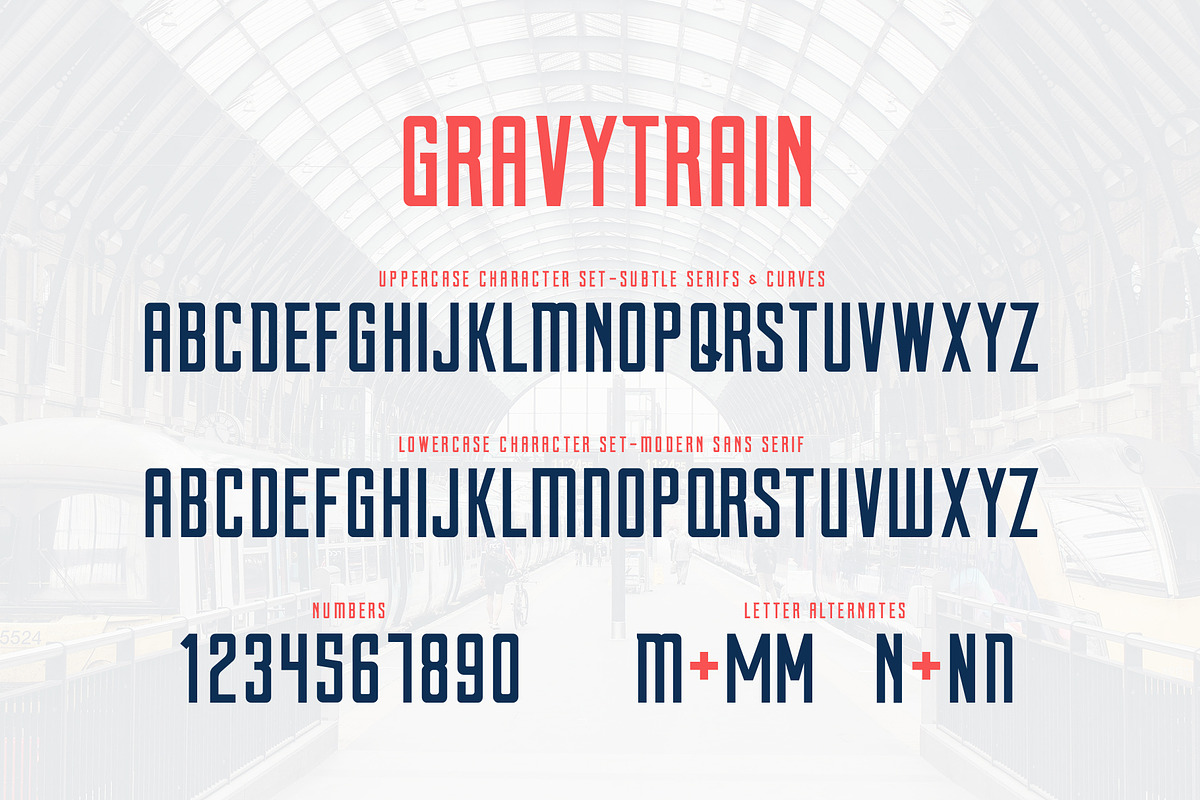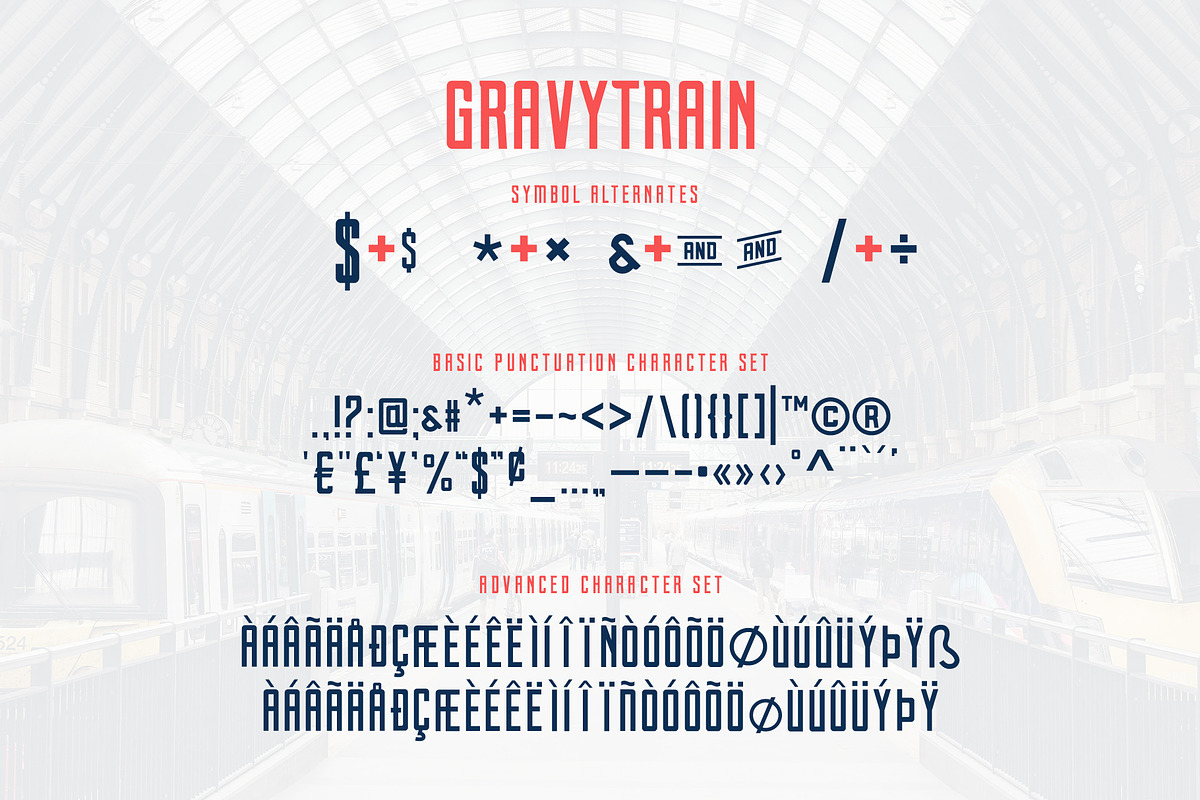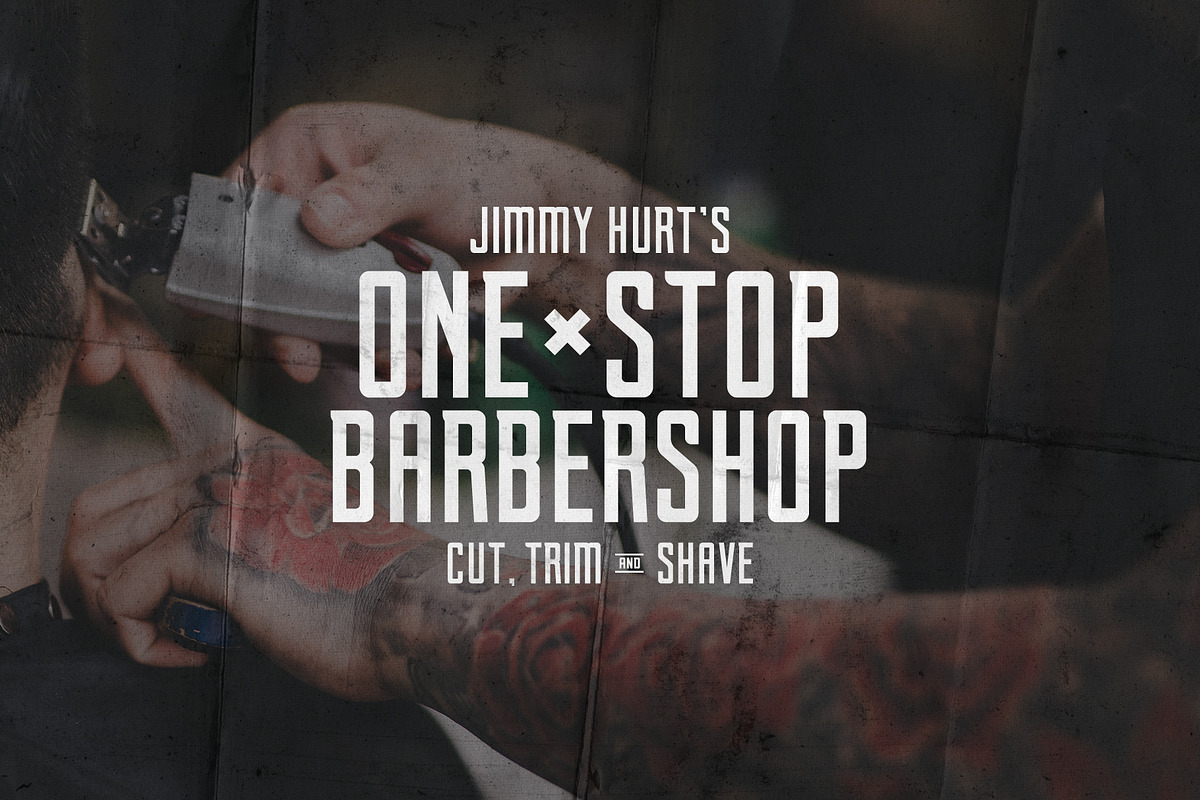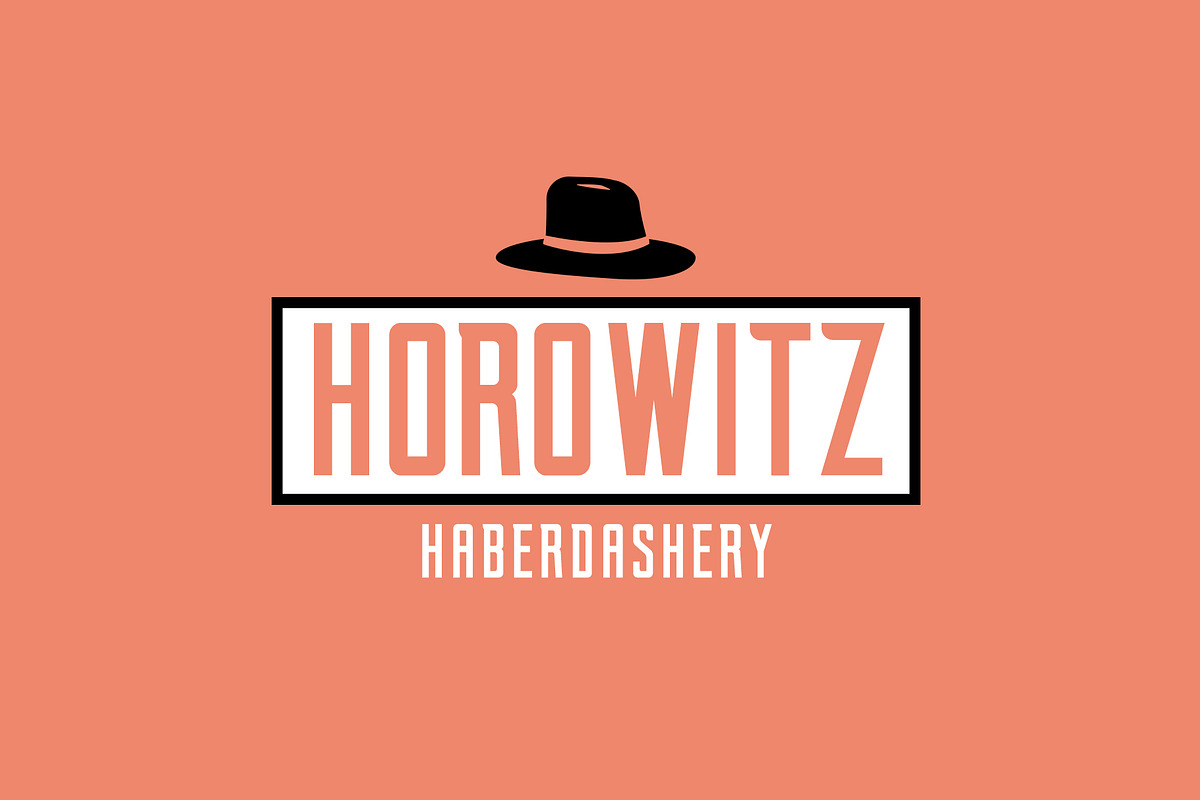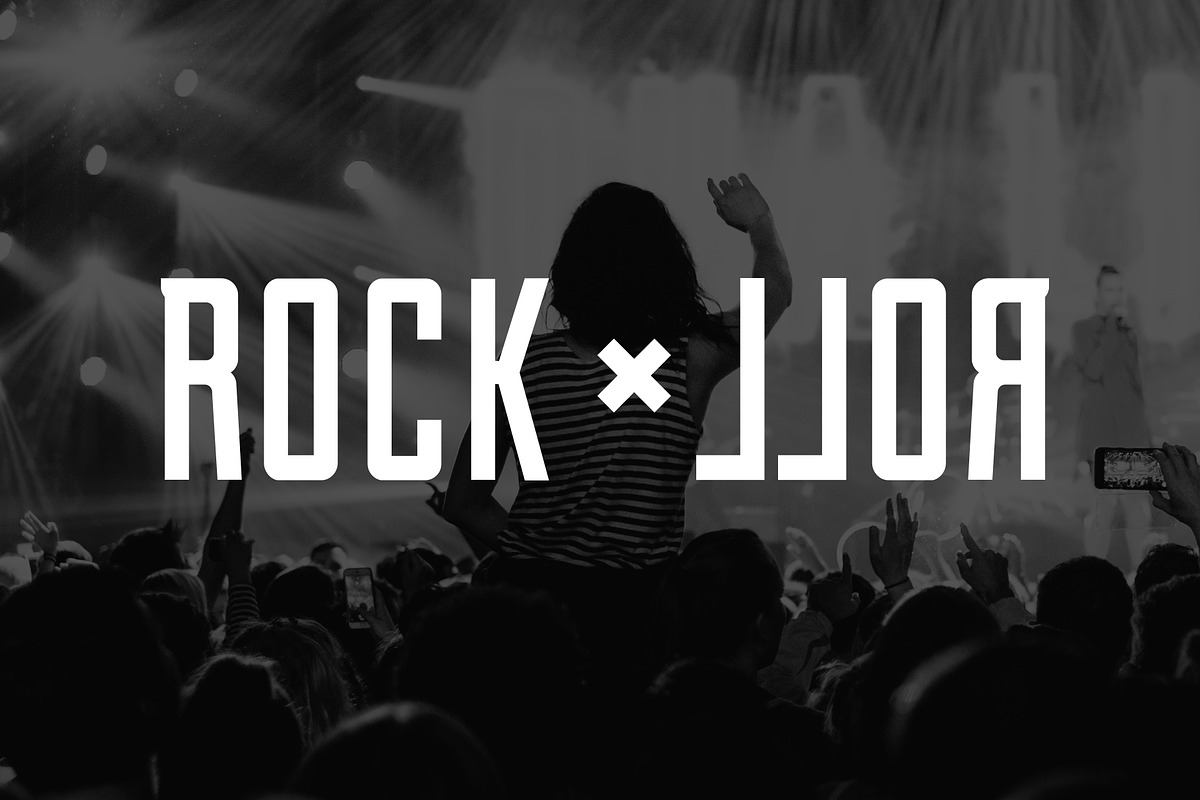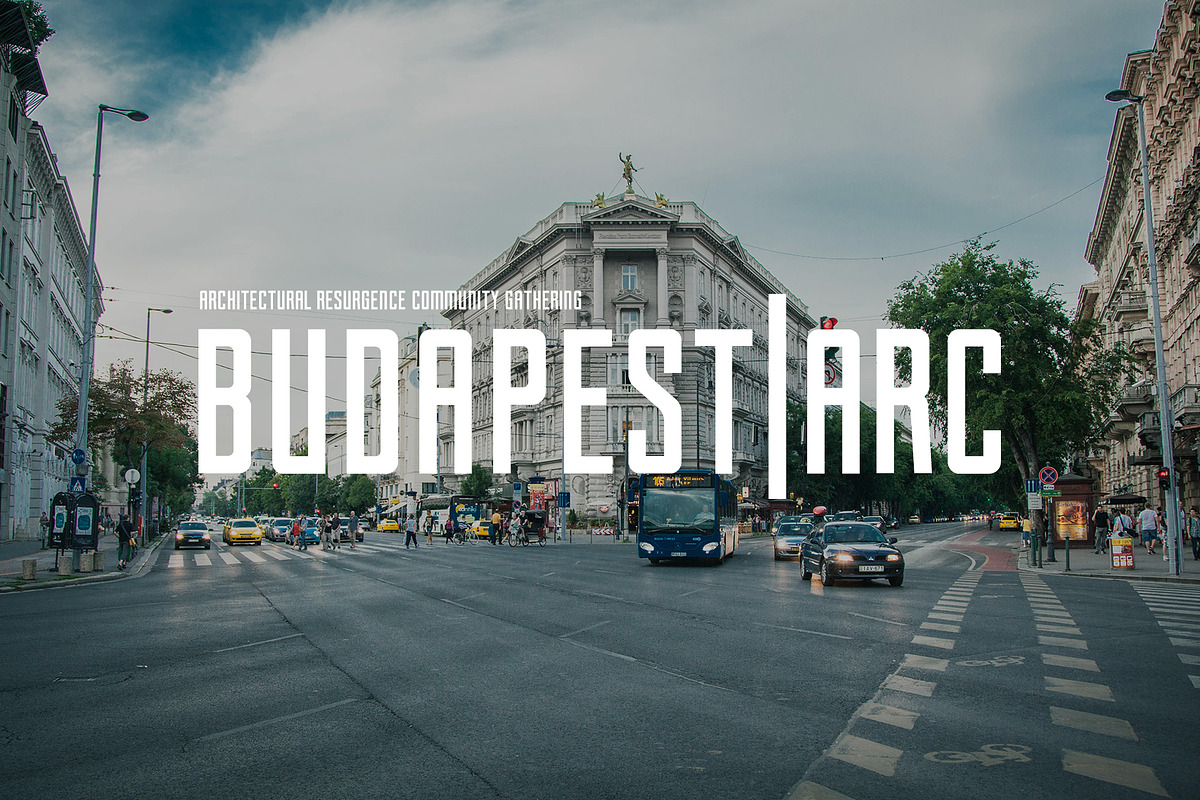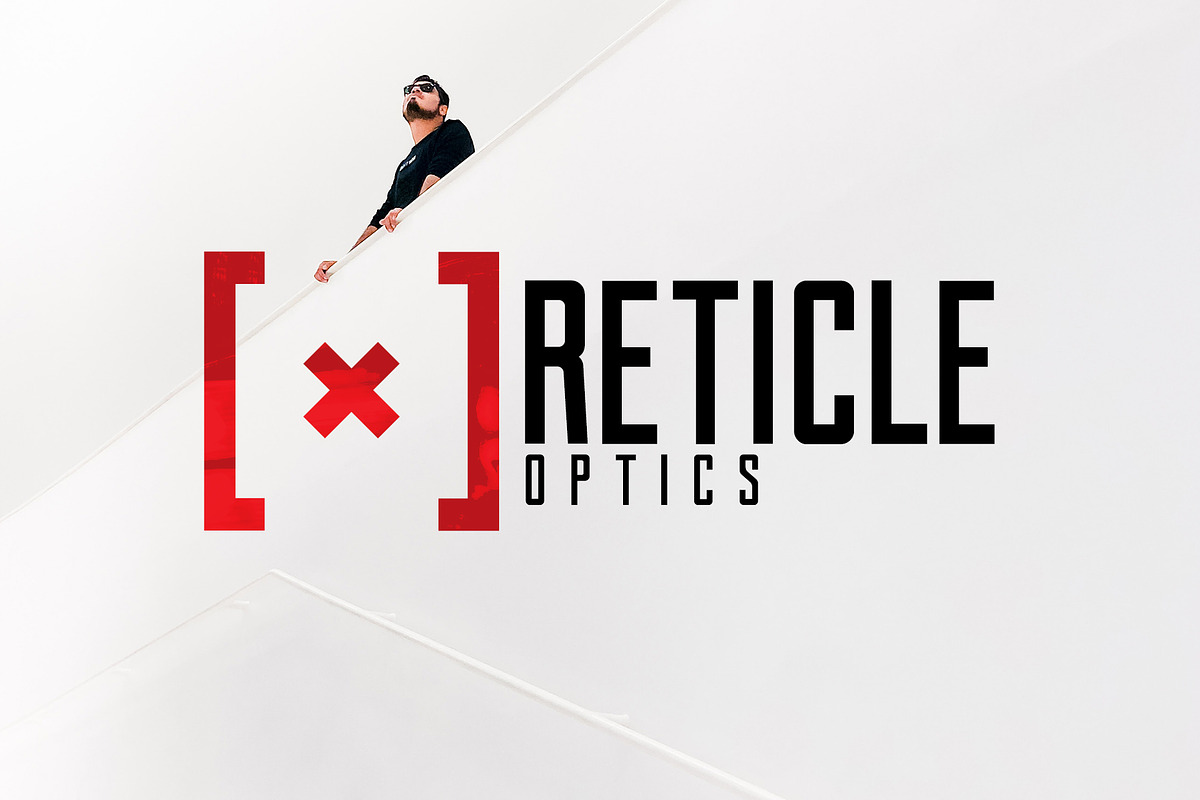
Gravytrain - A Display Font
This is the Gravytrain display font—perfect for logos, headlines, and title case applications. Designed to walk a fine line between modern and traditional stylings this typeface is a go-to display option for clean design and subtle craftsmanship.
Gravytrain does feature several alternate letters and symbols that can be accessed using Opentype capabilities to make this typeface as versatile and helpful as possible. Opentype is a function found in many current design programs that allow designers to quickly access any existing alternates for a letter, symbol or ligature. Opentype functionality is employed across the Adobe Suite, as well as Apple's Pages, Keynote, iBooks Auther and more. Even Word is in on the game. The primary options can be seen on the 4th and 5th slides (M, N, and several symbols). If you don't have a software the supports Opentype, you'll still be able to use the font on any other software without any issues, sans the alternates.